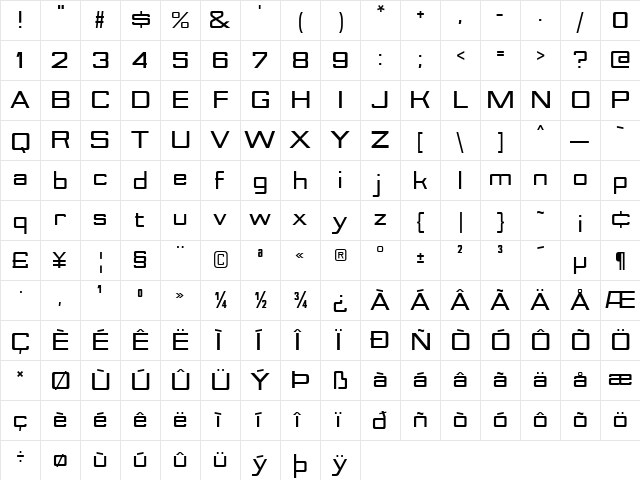
Nesobrite Semi-Expanded Black
Design Context for Nesobrite Typeface
Nesobrite takes a measured approach to typography — its balanced proportions and neutral character make it a reliable workhorse for both digital and print work.